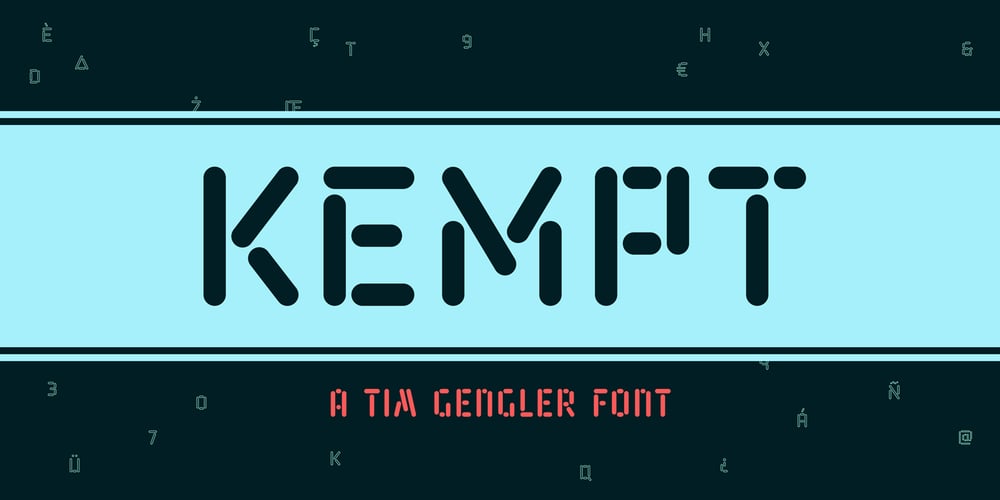
Kempt Font Family was designed by Tim Gengler and published by Bunny Dojo. Kempt contains 12 styles and family package options. Retro-futuristic styling infuses Kempt with the humming glow of a space shuttle control panel, bringing energetic radiance to page and screen. With quasi-LCD, neon, and stencil influences, Kempt shines through in any application.